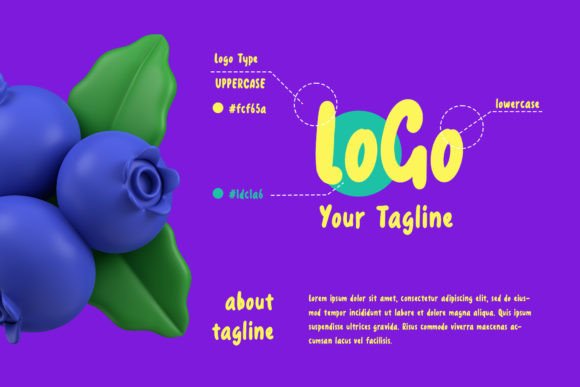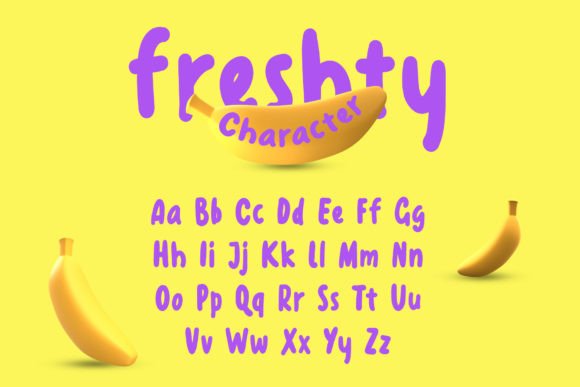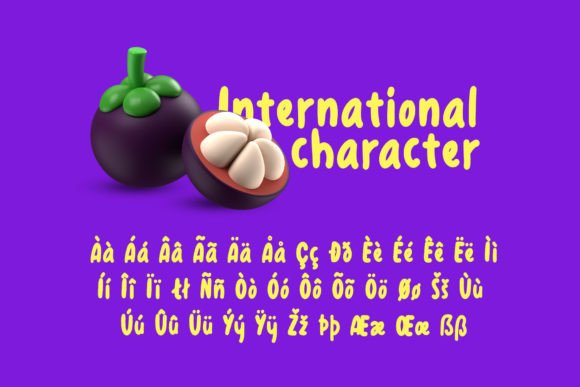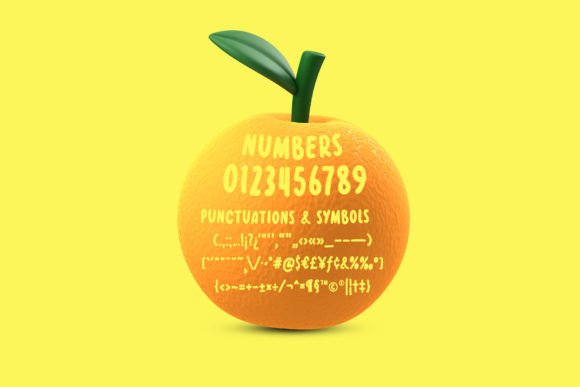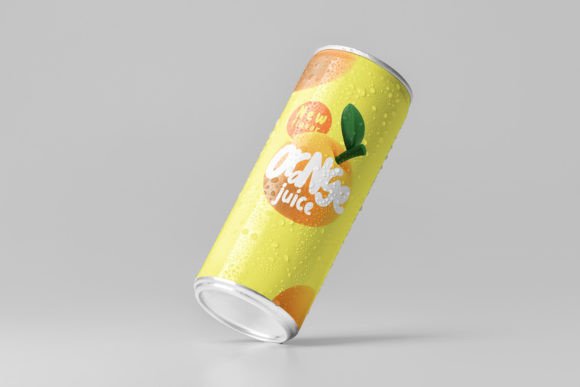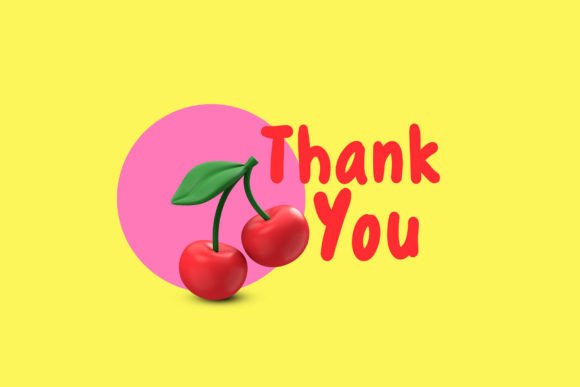
Introduction to New Freshty Font Font
Fonts play a crucial role in design, and the New Freshty Font font is a typeface that brings both character and versatility to any project. Whether you’re working on a branding project, a website, or a print design, the New Freshty Font font offers a unique style that can elevate your work.
New Freshty is a font designed to reflect freshness and cheerfulness.
In this font, each letter and character has a dynamic, soft, and flowing shape that exudes refreshing beauty The New Freshty font is created with the intention of bringing an energetic and positive atmosphere to designs.
Key Features of New Freshty Font Font
Why Choose New Freshty Font Font?
The New Freshty Font font is more than just a typeface – it’s a design tool that helps you communicate your message with style and clarity. Its unique character set and versatile design make it suitable for a wide range of applications, from elegant invitations to bold headlines.
With its carefully crafted letterforms and balanced proportions, the New Freshty Font font ensures readability and visual appeal across all mediums.
What makes New Freshty Font font special?
The New Freshty Font font stands out with its unique design, exceptional readability, and versatility across various design applications.